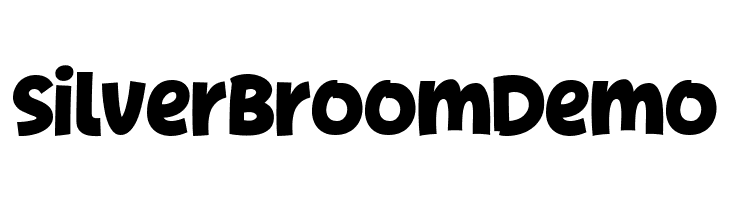
A playful, rounded font with bold, bubbly characters.
A playful, bold font with rounded, whimsical characters.
A playful, bold font with bubbly, rounded characters and a whimsical style.
A playful, bold font with rounded, bubbly characters and a vintage feel.
A bold, playful font with thick, rounded shapes and a whimsical style.
A bold, playful font with rounded, bulbous characters.